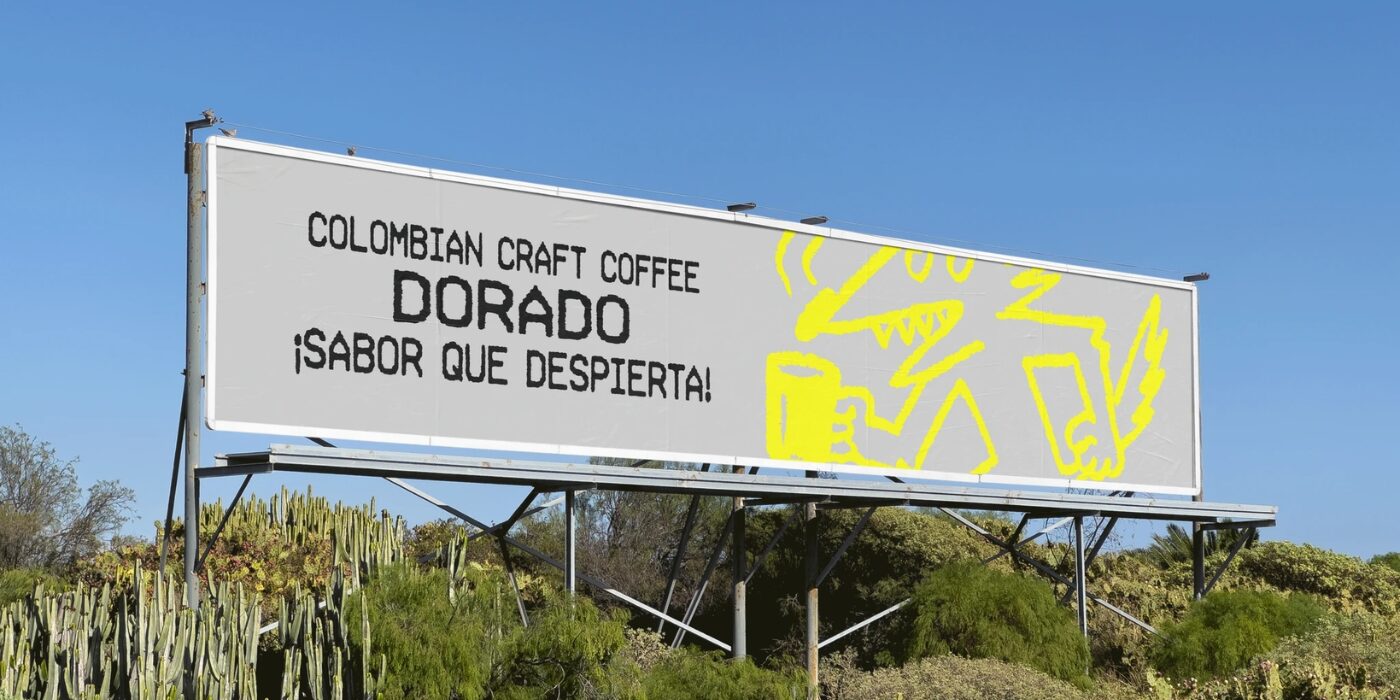
Coffee has always been a culture before it is a commodity. And when a new artisanal coffee brand steps into a crowded market, the visual challenge isn’t simply to look good — it’s to feel alive. That was exactly the task behind Dorado, a 2025 brand identity project crafted by Bleucoeur Studio. Dorado is an artisanal coffee brand that needed a visual language with enough energy and personality to match the intensity of the product itself. What emerged from that brief is a striking coffee identity that’s raw, graphic, and hard to ignore.
White and hot pink Dorado coffee packaging mockups with receipt-style typography and a wireframe mascot illustration.
A vertical stack of five colorful Dorado coffee boxes featuring bold retail-inspired typography and wireframe illustrations.
A Ticket to Something Bigger: The Visual Concepts
The identity Bleucoeur built for Dorado draws from an unexpected reference world: the thermal receipt. Instead of reaching for the usual artisanal coffee codes, the studio turned to the visual grammar of checkout counters and receipt rolls, reinterpreting those codes as something radical and contemporary. The result is a system that borrows from the world of retail typography and register printouts, then elevates it into something expressive and culturally charged.
At the heart of the identity lives a wireframe mascot, a dynamic figure that acts as the structural backbone of the brand. This character directs the rhythm of the compositions, guides the eye, and gives Dorado a truly singular presence. The inverted exclamation marks “¡ !” pepper the system as graphic punctuation, extending the Latin typographic energy into a visual gesture that reads as both attitude and origin. Saturated colours and bold contrasts amplify everything further, turning each touchpoint into something that vibrates on the shelf. The whole system feels alive, coherent, and deliberately radical in the best possible way.
Side-by-side view of a barista wearing a Dorado coffee t-shirt and an espresso machine filling a branded ceramic mug.
Flat lay pattern of pink, grey, and black Dorado coffee labels featuring receipt-style typography.
The Type That Makes It Work: Hypermarket by Green Type
None of this visual energy would land without the right typographic foundation. Hypermarket by Green Type is the engine driving it all, designed by Dmitry Greshnev and published by the independent Green Type foundry. This is a font family born from the aesthetic of shopping receipts, that specific texture of monospaced and thermal-printed lettering. The family comes in nine styles spanning condensed, regular, and expanded widths, each in light, regular, and bold, giving the designer a flexible toolkit that can shift between tight display settings and more airy applications.
Hypermarket carries the DNA of the very reference world the identity is built around: the receipt, the register, the checkout counter. When used at large scale on packaging, it reads as bold and authoritative; at smaller scales, it retains a kind of mechanical warmth that softens the overall graphic intensity. The condensed styles, in particular, create dense typographic blocks that echo the stacked information of a printed ticket.
Sepia photo of a smiling coffee farmer with red stickers next to a grey receipt-style label design.
Four vibrant Dorado coffee post cards in grey, yellow, pink, and black featuring wireframe mascot designs.
Red London taxi parked in front of large storefront windows decorated with minimalist Dorado coffee mascot graphics.